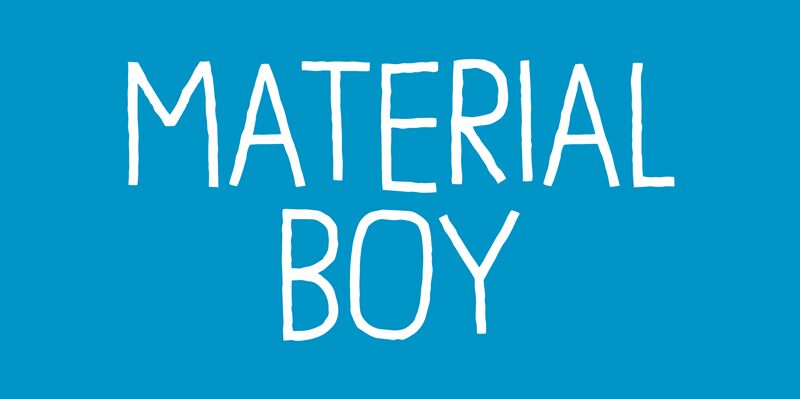
Material Boy DEMO Regular
Material Boy, crafted by the whimsical touch of Pizzadude, is a display font that stands out with its unique cartoon style and semi-light weight. Its condensed form factor exudes a playful energy, perfect for projects that demand a touch of nostalgia mixed with modern flair. With its roots in the nostalgic essence of "The Wedding Singer," Material Boy brings an organic roughness to the table.
Each all-caps letter varies in texture, offering simple legibility while maintaining an artisanal vibe. The true magic lies in the Contextual Alternates feature; every character has five distinct versions, ensuring your creative work is infused with a dynamic and authentic feel. Whether you're designing a funky logo, whimsical book cover, or eye-catching social media graphics, Material Boy is set to make your project sing with personality.